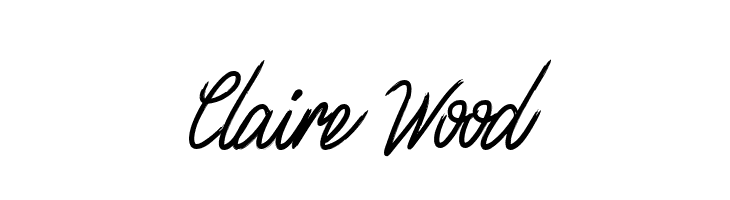
( Fonts by Staircase Studio )
A fluid and elegant script font with dynamic cursive letterforms.
A bold, playful handwritten font with rounded, consistent strokes.
A bold, playful handwritten font with rounded letterforms.
A playful, casual handwritten font with smooth lines and consistent stroke width.
A playful, handwritten font with a casual and friendly vibe.
( Clara )
A casual, handwritten font with smooth, flowing strokes and a friendly demeanor.
( Fonts by Staircase Studio )
A fluid, elegant script font with a natural handwritten style.